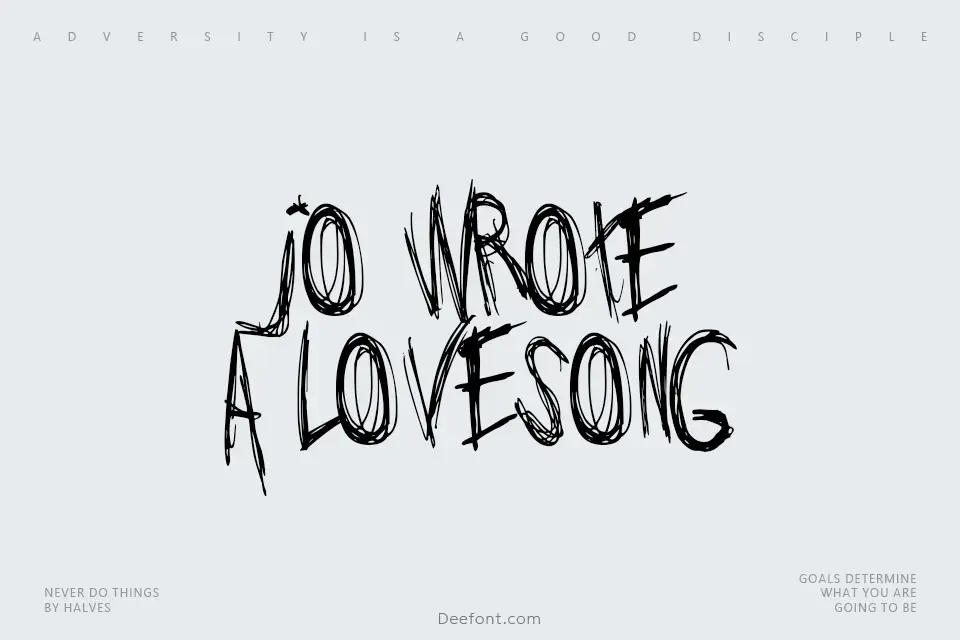
Jo wrote a lovesong Font
Jo wrote a lovesong is an expressive script font featuring distinctive pen stroke effects and handwritten characteristics. With its edgy, graffiti-like aesthetic, this display typeface brings casual energy and creative flair to posters, logos, invitations, and graphic designs. The multi-linear, scribbled appearance makes it ideal for projects seeking an authentic, street art feel. Its 653 glyphs provide extensive character support for diverse typographic applications. Perfect for apparel designs, wall art, and themed decorative typography.